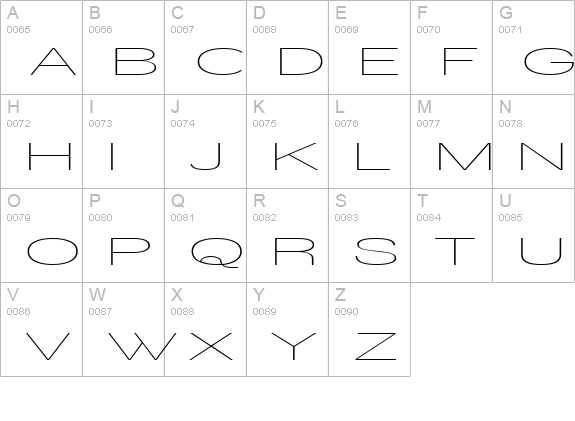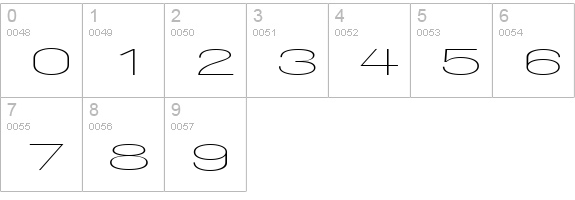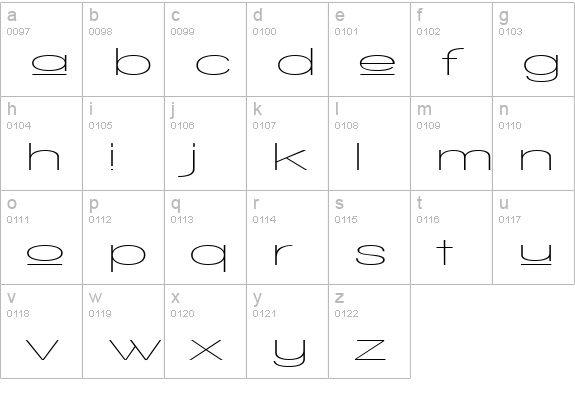
Walkway Upper UltraExpand Font Details
Walkway Upper UltraExpand is a modern and stylish font that exudes sophistication and elegance. With its ultra-expanded letterforms and clean lines, this font is perfect for making a bold statement in your design projects. The elongated characters create a unique and eye-catching look that is sure to capture attention. What sets Walkway Upper UltraExpand apart is not only its striking appearance but also the fact that it is available for free download at FontsMarket.com. This means you can easily access this premium font without any cost, making it a valuable addition to your font library. Whether you are working on branding, advertising, posters, or any other creative project, Walkway Upper UltraExpand will elevate your designs with its distinctive style and versatility. Add a touch of sophistication and modernity to your projects with Walkway Upper UltraExpand, the free font available for download at FontsMarket.com. Elevate your designs and captivate your audience with this sleek and stylish typeface that is sure to leave a lasting impression.